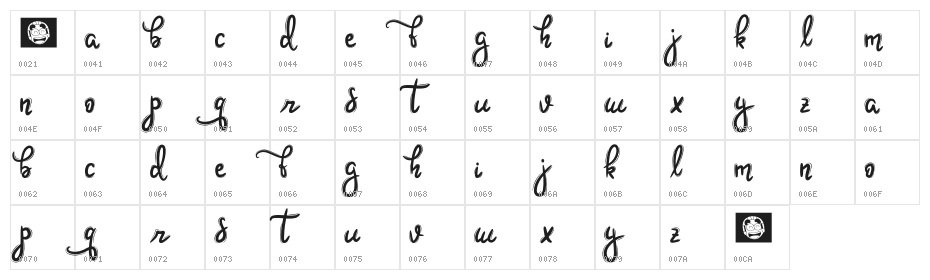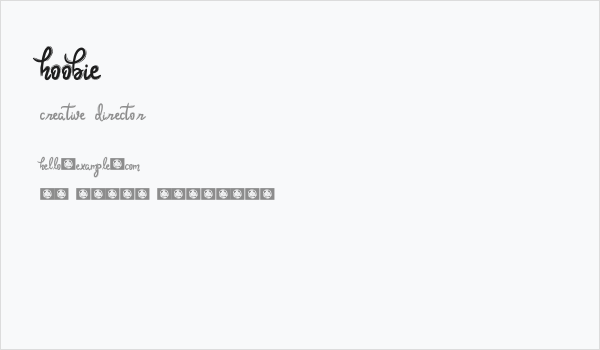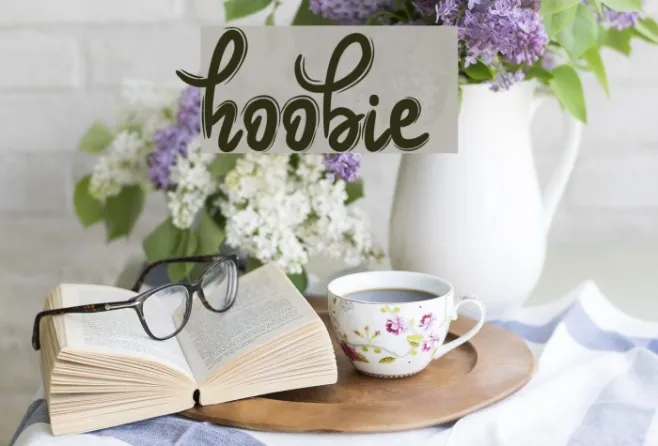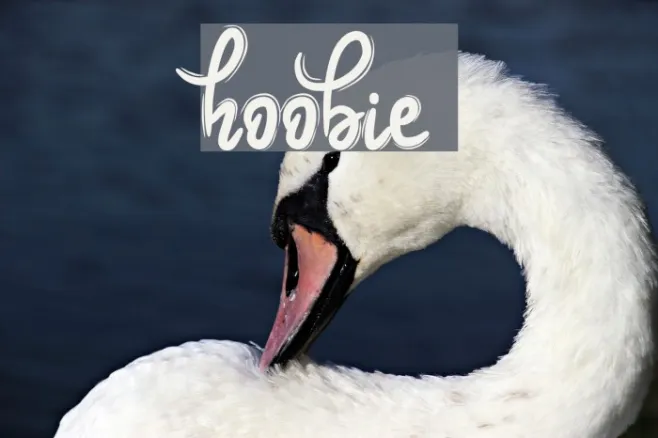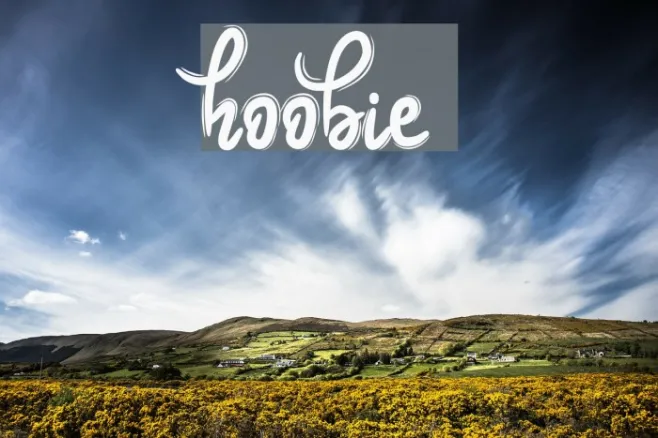
Hoobie Font
Hoobie Description
This font showcases a playful and energetic script style with a handwritten appearance. The letters are connected, featuring smooth, flowing curves that give it a lively and dynamic feel. The strokes are bold and consistent, adding to its legibility while maintaining a casual and informal tone. The font's design includes a slight slant, enhancing its handwritten charm. It is well-suited for creative projects that require a personal touch, such as invitations, greeting cards, or branding materials. The overall look is both modern and approachable, making it versatile for various design applications.
| Proposed Projects | Ideal for invitations, greeting cards, branding, and creative projects needing a personal touch. |